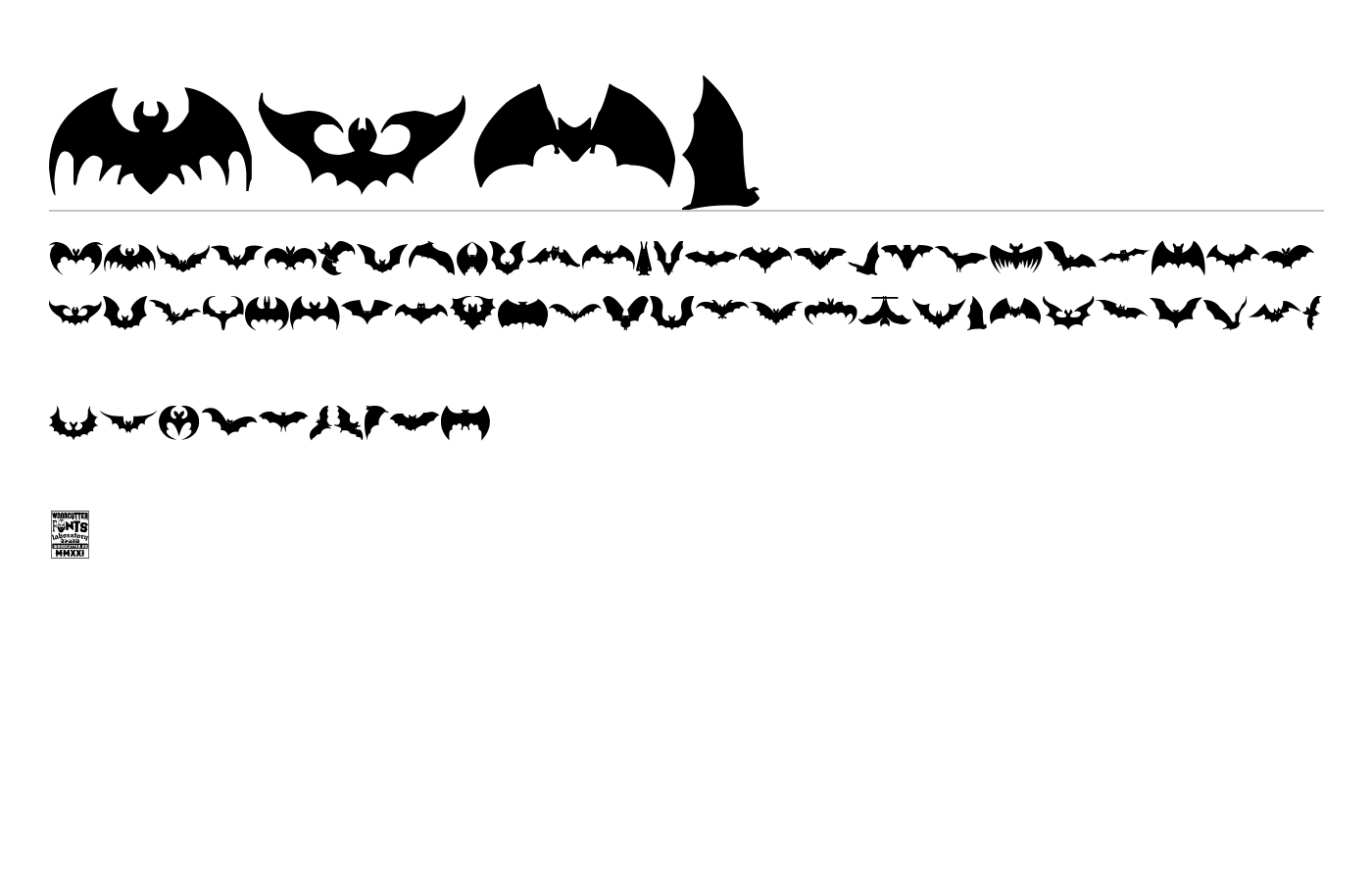
Bats Font is a playful and decorative symbol typeface made up entirely of stylized bat silhouettes in various dynamic poses. Its bold, solid black shapes create a strong visual impact, making it perfect for Halloween-themed designs, spooky branding, or fun, eye-catching posters and decorations. This font works best for headline or ornamental use where a unique, thematic atmosphere is desired.
Bats Font
About Bats Font